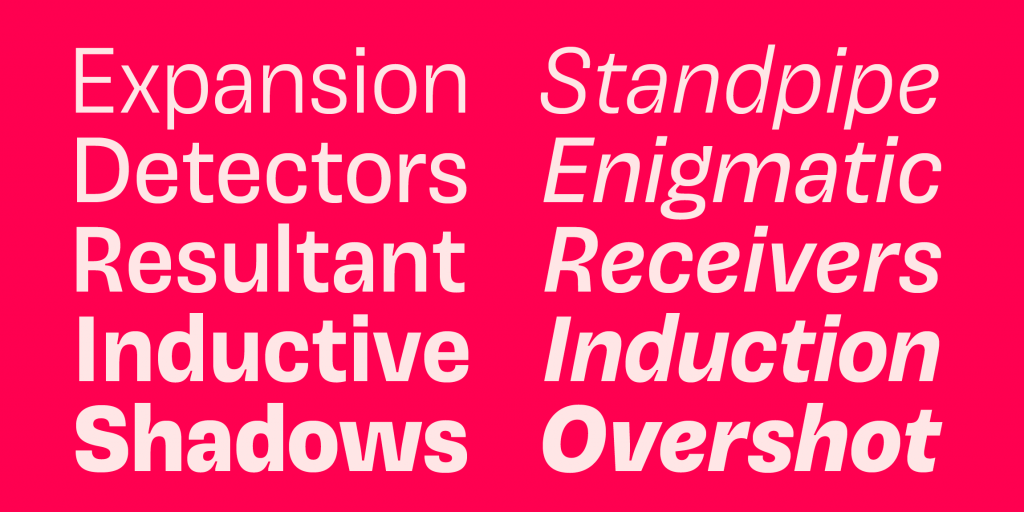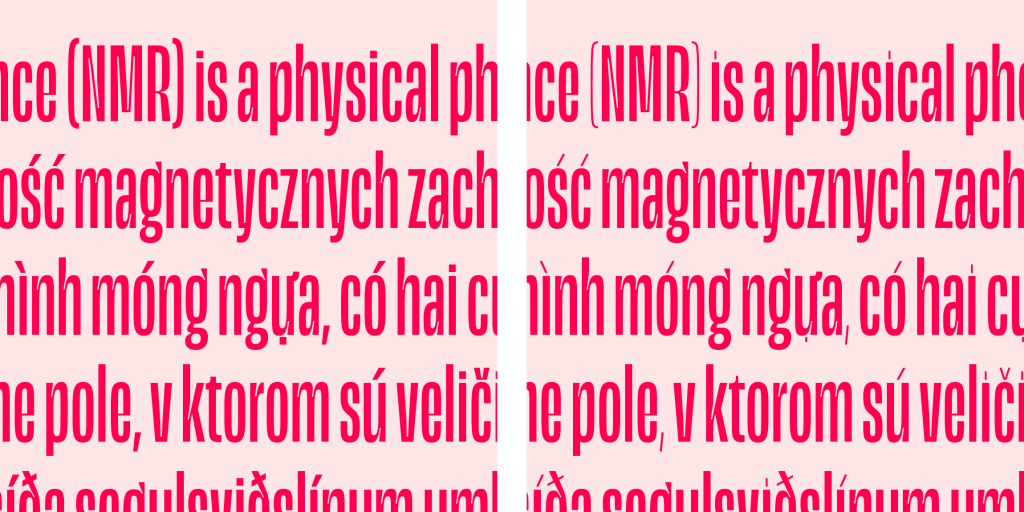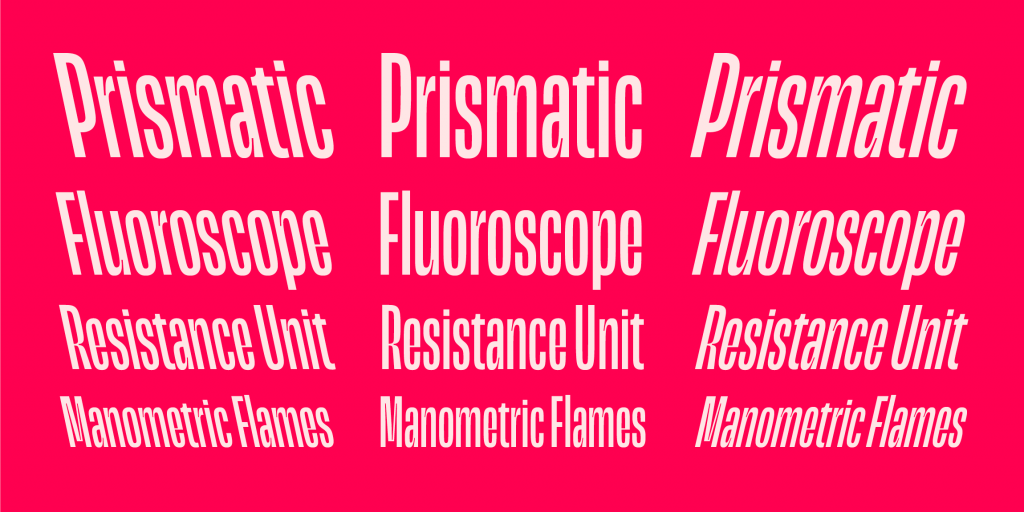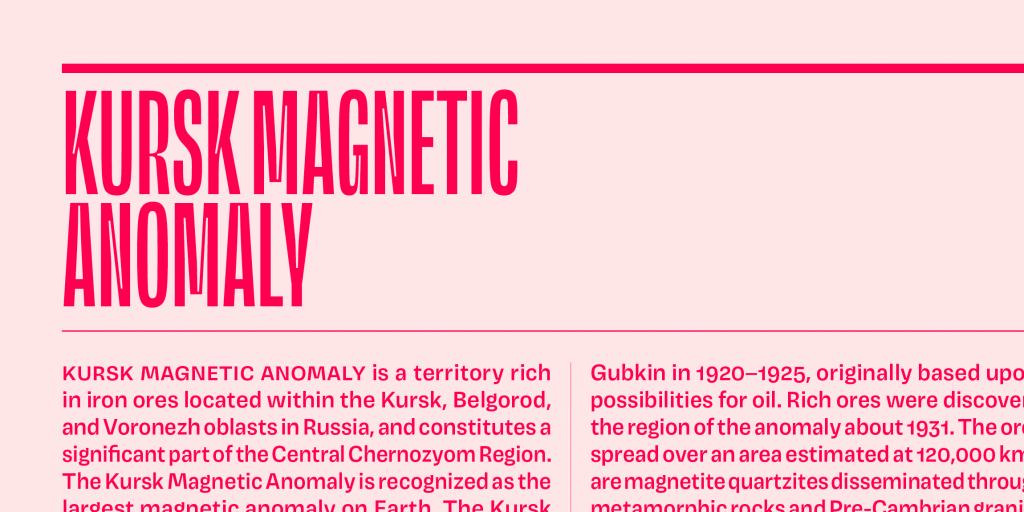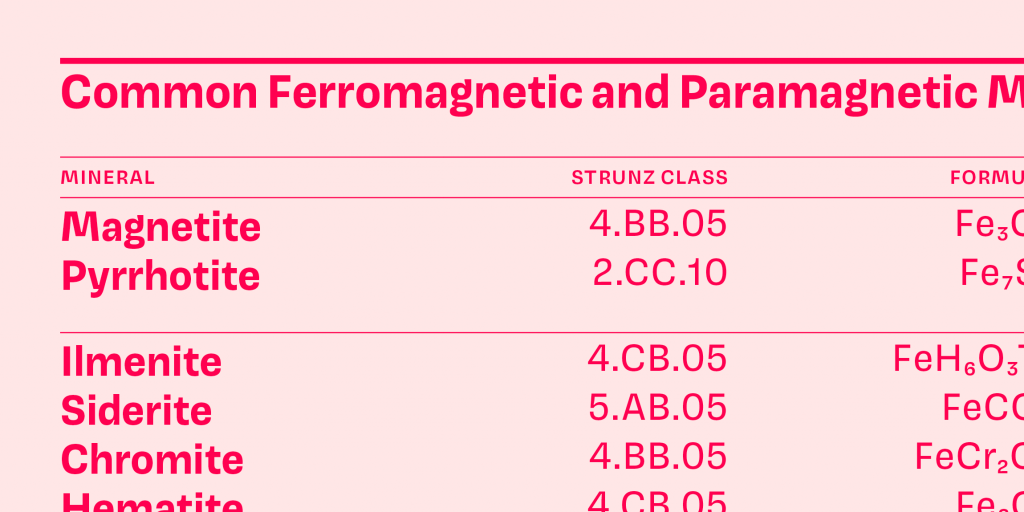
Name: Magnet
Designer: Inga Plönnigs
Foundry: Frere-Jones Type
Back Story: Inga Plönnigs first showed her typeface-in-progress to Tobias Frere-Jones during a guest critique in the spring of 2015, while she was getting her Master’s in type and media at the Royal Academy of Arts, the Hague. Impressed by what he saw, Frere-Jones got back in touch after Plönnigs graduated and, in collaboration with her and his studio partner Nina Stössinger, developed and published the typeface as a retail product.
“Nina and I thought of ourselves as editors,” Frere-Jones says. “It was important that we were not leaving our own stamp on this in some way; our job was to clarify. Our commentary was always about amplifying what Inga was going for and also, in a conversation about how to organize the family, make it into something that would make sense for customers.”
For her part, Plönnigs says that she didn’t have a clear picture in her head of what the typeface as a whole would look like, “but I knew I wanted it to have these very prominent notches that would interrupt the pattern created by the letter stems and complement the hairline strokes.” She adds that she also wanted it to be a very condensed shape. “I had a frame and I wanted to fill it as interestingly as possible.”
Why’s it called Magnet? At first, the designer tried to dream up a name starting with the letter A, because she liked that character so much. However, she soon realized that Magnet is a perfect showcase for some of the typeface’s most distinctive characters (the capital M, lowercase a, g, and e) all at once.
What are its distinguishing characteristics? Steeply angled notches cut into the headline weight letters, giving them a strong forward movement and letting a little light into the powerful black shapes. The Standard version is full of surprise turns and quicksilver shifts in line weight, moving into territory all its own. (Check out the way the ear of the lowercase g points directly skyward!) Notches, alternate punctuation, and accents share the same line weight, creating a subtle visual harmony throughout the design.
What should I use it for? Magnet Headline adds a rich, assertive energy to headlines and display copy, while the Standard weight’s squared curves impart a quieter but still idiosyncratic force field to blocks of tightly leaded text.
What other typefaces do you like to pair it with? Magnet Headline and Standard, of course, are made for each other. Try Caslon Doric Condensed Light with Magnet Headline if you’re feeling bold enough to combine two sets of condensed character shapes. Pair Mislab with Magnet Standard for a sturdy serif display option.